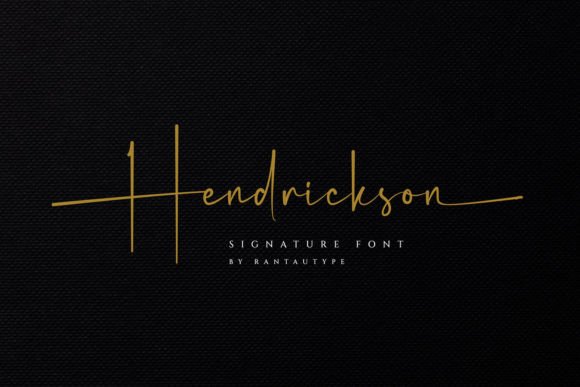
Behold, the Hendrickson Font - a masterpiece crafted by RantauType, poised to elevate your creative resume to unparalleled heights. This exquisite script font is a symphony of elegance and professionalism, beckoning you to unveil your individuality and charm.
With Hendrickson, your resume transforms into a captivating narrative, a testament to your unique talents and aspirations. The font's graceful curves and sweeping lines dance across the page, drawing the reader's eye with an allure that is both timeless and utterly modern.
Hendrickson is not merely a font; it is an experience. Immerse yourself in its beauty and watch as your words take on a life of their own, conveying not just information but also emotion and passion. The font's meticulously crafted swashes add an extra layer of sophistication, allowing you to make a statement that is both bold and refined.
Picture this: your resume adorned with Hendrickson's elegant script, inviting potential employers to embark on a journey of discovery. The font's inherent versatility allows it to adapt seamlessly to any design aesthetic, effortlessly complementing your personal brand. Whether you seek a classic and timeless look or a more contemporary and edgy vibe, Hendrickson delivers.
Hendrickson is the ultimate choice for those who value creativity, distinction, and unwavering professionalism. Its versatility extends beyond resumes, making it an ideal companion for watermarks, photography, signature logos, quotes, album covers, magazines, business cards, and a myriad of other design projects.
Embrace the allure of Hendrickson, and let your creative spirit soar. Unlock the font's transformative power and watch as your words ignite the imagination of those who matter most. With Hendrickson, your resume becomes a masterpiece, a reflection of your exceptional talent and unwavering dedication.